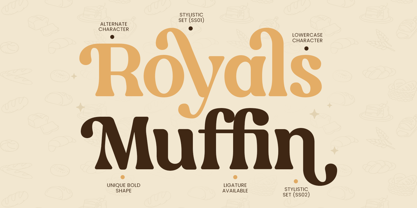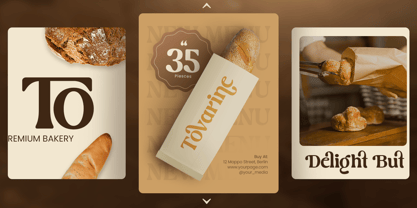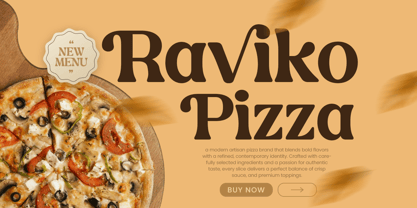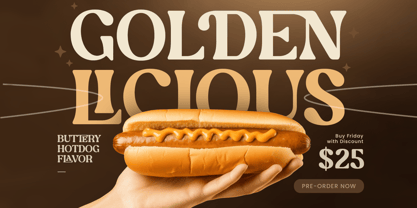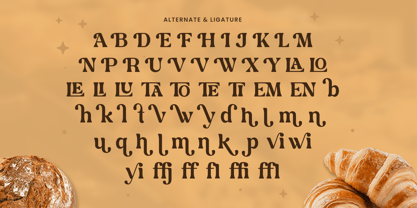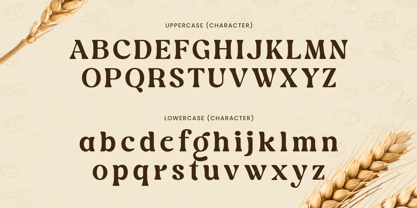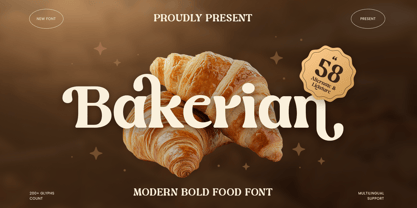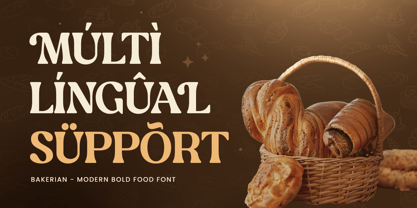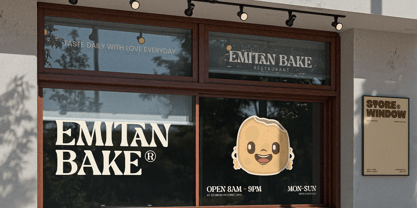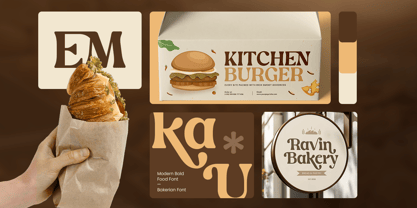
Bakerian is a modern bold food font designed to bring delicious energy and strong visual flavor to your typography. With thick strokes, friendly curves, and a bold contemporary attitude, this typeface creates an appetizing tone that feels vibrant, inviting, and instantly memorable.
Built for food-focused branding, Bakerian works beautifully across restaurant logos, café menus, bakery packaging, snack labels, posters, signage, social media promotions, and digital marketing visuals. Its bold structure keeps every headline clear and impactful, helping your food brand stand out across both print and digital layouts.
Whether you’re launching a bakery brand, designing menu highlights, creating product packaging, or building cheerful culinary campaigns, Bakerian provides a bold typographic foundation that makes every word feel tasty, modern, and full of personality.
Inspiration Behind Bakerian
Bakerian is inspired by modern food packaging and bold culinary branding—where thick shapes and playful rhythm create a more appetizing and approachable identity. The design focuses on strong visual weight and smooth flow to support food-related projects with a fresh, flavorful, and brand-ready look.
Bakerian Font Features:
Bold modern letterforms with appetizing food-brand character
Perfect for restaurant branding, menus, and any design
Strong readability for product names and promotional headlines
Friendly shapes for inviting and delicious typography
Uppercase, lowercase, numerals, and punctuation included
OpenType features for polished professional typesetting
Perfect For
Food logos, bakery branding, and café identity systems
Menu headers, specials boards, and promotional graphics
Packaging, labels, stickers, and snack product branding
Posters, signage, banners, and in-store marketing visuals
Social media promotions and food campaign designs
Multilingual Support